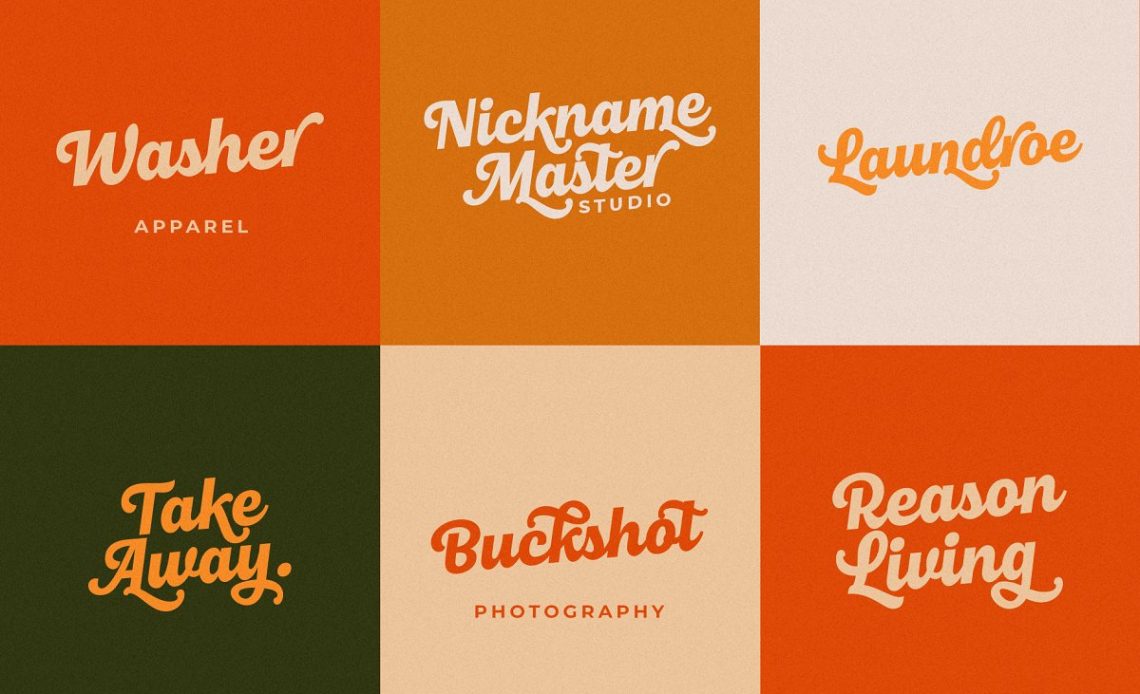
Discover the captivating Roshelyn Typeface - the perfect script font family for your next project. Created by the talented Hermansyah Hermansyah, Roshelyn Typeface boasts carefully crafted curves and unique personality, making it the best font for 3D letters.
The flowing characters in this font are designed to create a stunning message, whether you're working on a logo, badge, insignia, packaging, headline, poster, t-shirt/apparel, greeting card, or wedding invitation. With Roshelyn Typeface, you can add a touch of elegance to any project and make it stand out from the crowd.
But that's not all. Roshelyn Typeface also comes with a bunch of alternative characters that you can mix and match to fit your project perfectly. These alternative characters are divided into several OpenType features such as Stylistic Alternates, Stylistic Sets, and Ligatures, giving you even more creative control over your designs.